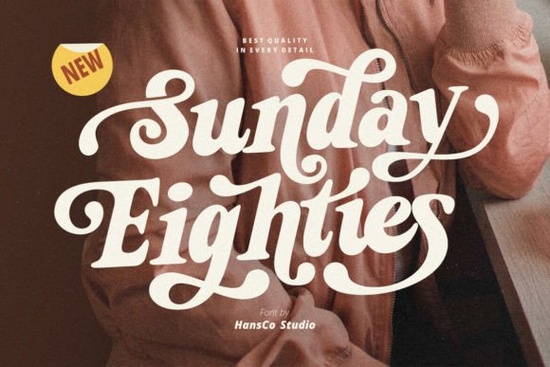
Looking for a font that brings a nostalgic vibe to your designs? The Sunday Eighties Font is a great choice for anyone who wants to add a retro feel to their work. This bold, vintage serif style is perfect for logos, packaging, and other creative projects. Whether you're designing for a small business or working on a personal craft, this font offers a unique look that stands out.
The Sunday Eighties Font includes all the essential characters you need, from uppercase and lowercase letters to numbers and punctuation. It also supports multiple languages, making it a versatile option for international projects. The font is PUA encoded, which means you can easily access all the special glyphs and ligatures without any extra steps. This makes it ideal for designers who want to experiment with different styles and effects.
If you're into vintage aesthetics, you'll appreciate the additional alternative swash character fonts that come with the main set. These variations allow you to customize your designs and create a more dynamic visual experience. Whether you're working on a t-shirt design, a poster, or a YouTube thumbnail, the Sunday Eighties Font can help you achieve that classic 80s look.
What Makes the Sunday Eighties Font Stand Out?
The Sunday Eighties Font is more than just a stylish typeface it's a tool that can enhance your creative workflow. Its bold and retro appearance makes it suitable for a wide range of applications. From branding to print materials, this font adds a touch of nostalgia that can resonate with your audience. It’s especially popular among designers who want to incorporate vintage elements into modern designs.
One of the key features of this font is its readability. Even though it has a strong, vintage feel, it remains easy to read in both large and small sizes. This makes it a good choice for headlines, banners, and other display purposes. You can use it in everything from social media posts to magazine layouts without worrying about legibility issues.
Where Can You Use the Sunday Eighties Font?
This font is incredibly versatile and can be used in many different contexts. For example, if you're creating packaging for a product, the Sunday Eighties Font can give it a retro edge that appeals to customers looking for unique designs. It also works well for stickers, labels, and other printed materials. If you're into crafting or print-on-demand, this font could be a valuable addition to your collection.
For digital projects, the Sunday Eighties Font is perfect for web design, YouTube thumbnails, and Instagram graphics. Its bold style helps your content stand out in a crowded space. It’s also a good option for blog headers, email newsletters, and other online materials where a strong visual presence is important.
How to Get the Most Out of This Font
To make the most of the Sunday Eighties Font, consider experimenting with different color schemes and layouts. Since it has a retro feel, pairing it with pastel or neon colors can create a striking contrast. You can also combine it with other fonts to create a layered design that feels both modern and nostalgic.
Another tip is to explore the alternative swash characters included with the font. These variations can add a subtle but noticeable difference to your designs. Try using them in headings or decorative elements to give your work a more personalized touch.
Before you start using the Sunday Eighties Font, take some time to test it in different scenarios. Try it out in a sample design or mock-up to see how it looks in practice. This will help you determine if it fits your style and project requirements. Once you’re confident, you can integrate it into your workflow and enjoy the creative possibilities it offers.
- Experiment with different color combinations to highlight the font’s retro style.
- Use the alternative swash characters to add variation to your designs.
- Explore other similar fonts to find the best match for your needs.